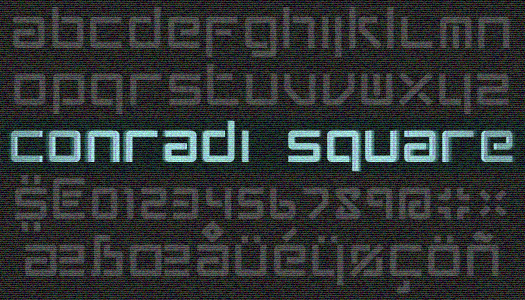
A square, "uncial" font, inspired by a friends' surname and the Carhartt t-shirts that were fashionable half a decade ago. (This text is written in 2014) It's suited best for single-word captions. It has a very complete character set, with many diacritis included, as well as a the euro, pound, yen and dollar sign. The font has only lower case characters, the uppercase characters being either copies of or variants on (F, L, K, O, V, X, Z) their lower case counterparts. Every character tries to fill up a perfect sqaure (a, b, c, e, m, n, o, r, s, u, v, w, x, z) and tries to use only horizontal and vertical lines. If that's not possible, 45 degree angles are used (k, v and 'capital' z). Ofcourse, being a true lower-case font, ascenders and descenders are used wherever needed. In this typeface, no intersections have been allowed. Hence, characters like 'x' and '+' make use of 'fly-overs' or 'pylons'. For the 'o', this forced me to make two variants: one that is continuous and one with two 'pylons'. Ciphers are slightly smaller then characters. The German ringel-s (ß) does right to it's origin as a ligature: it's a combination of a slender and low 's'. I could not resist including a Danish/Norwegian ø. This font is very suitable to be a used as a stencil. (Just select the right 'o' by using the uppercase variant.) Free for any use, but if you use it, I would appreciate an e-mail. FontForge was used to create most diacritics and to export it to a TTF. By: IDEOGRAM (www.ideogram.nl) http://www.ideogram.nl/content/conradi-font |